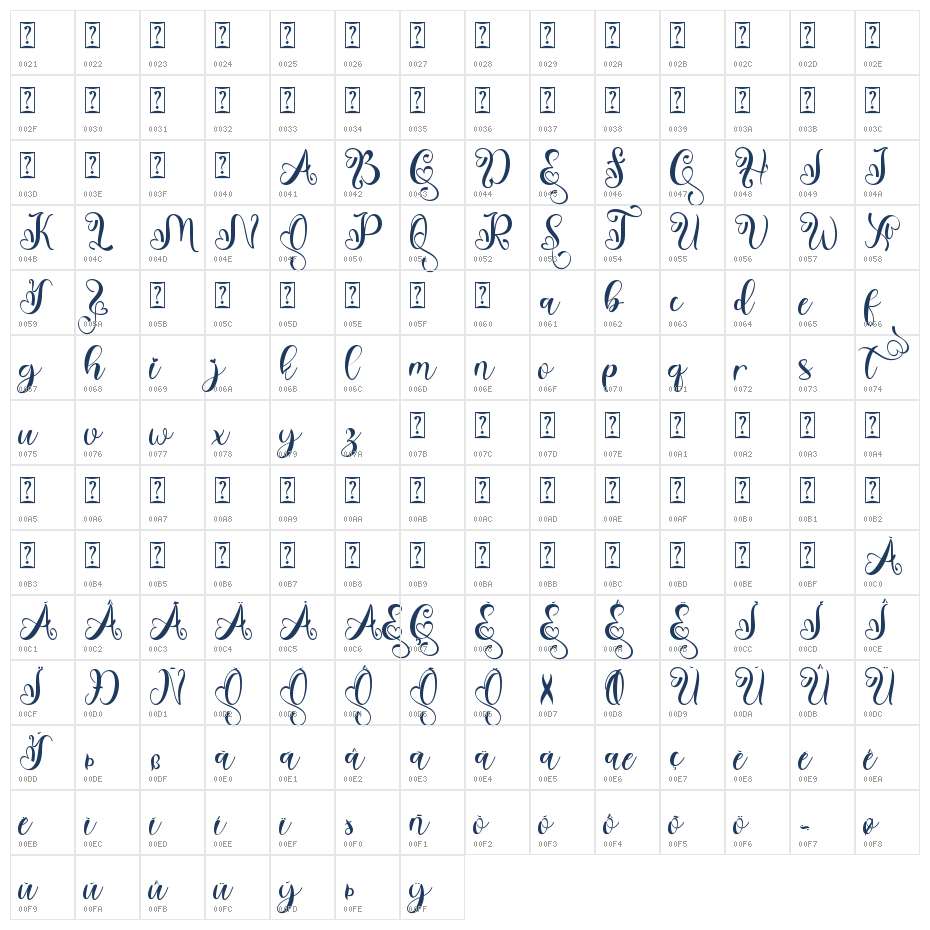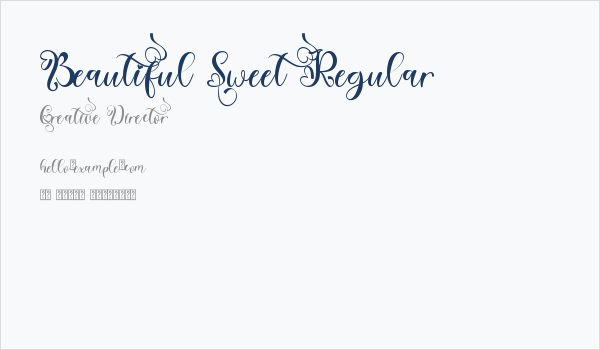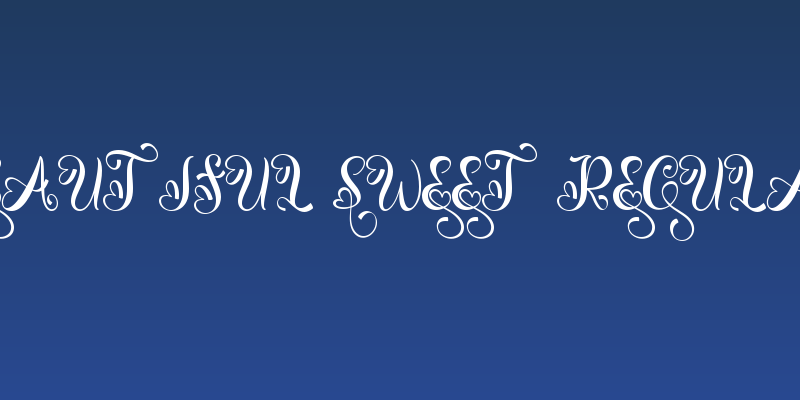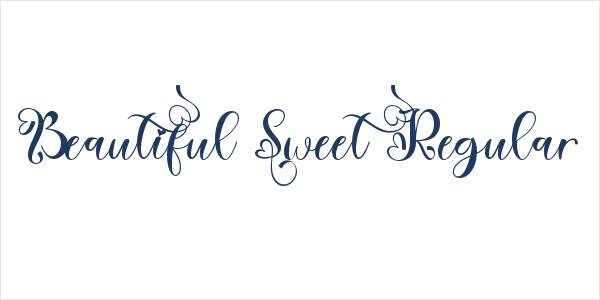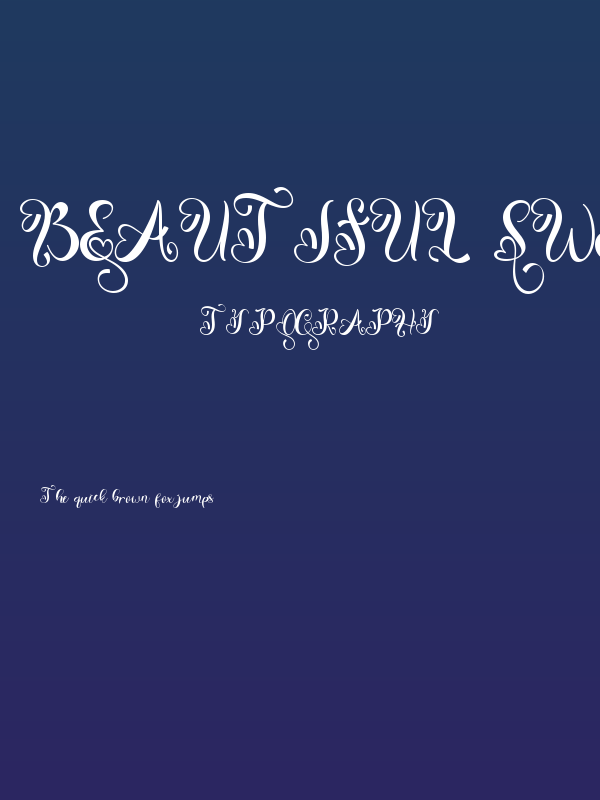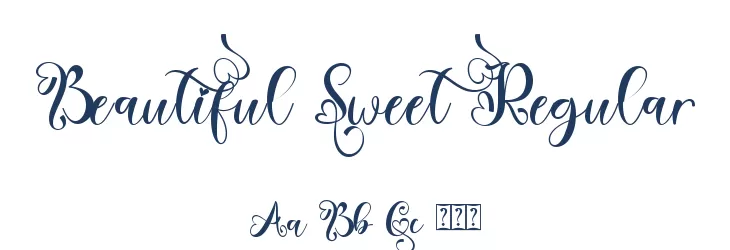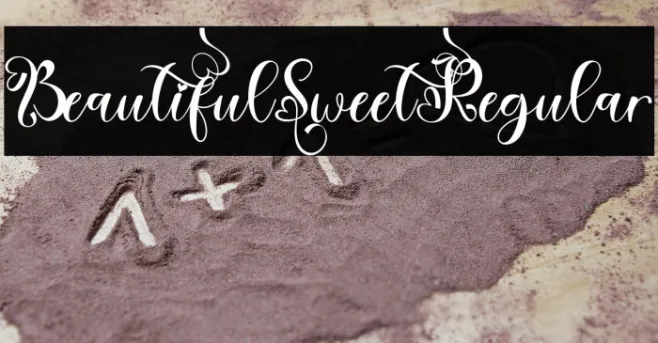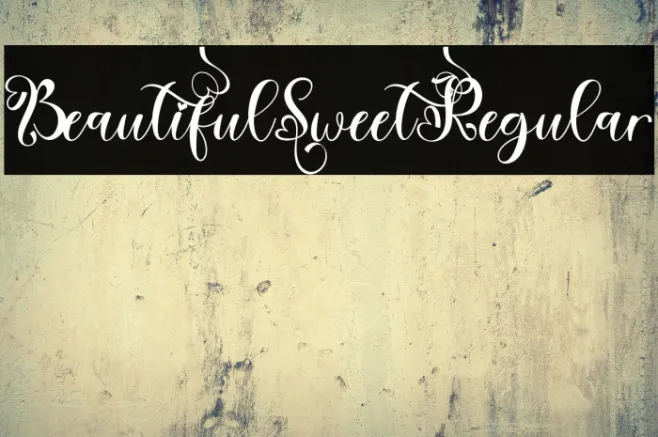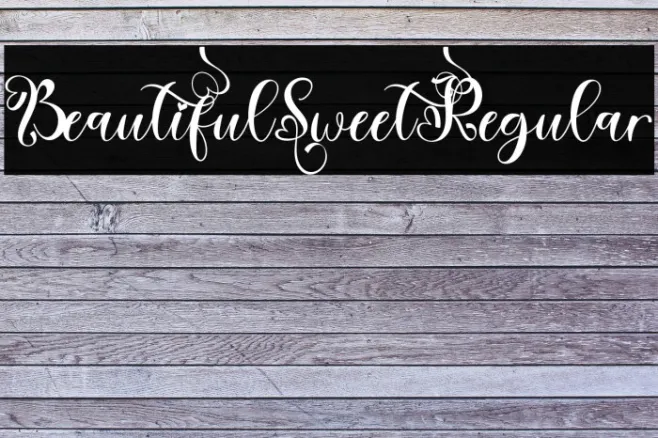
Beautiful Sweet Regular Font
Beautiful Sweet Regular Description
Elegant, decorative script font with elaborate swirls and flourishes, featuring both uppercase and lowercase letters, as well as special characters.
Beautiful Sweet Regular
| Overall Style | Elegant, Decorative, Flourished |
| Use Case | Headlines, Invitations, Logos, Decorative Text |